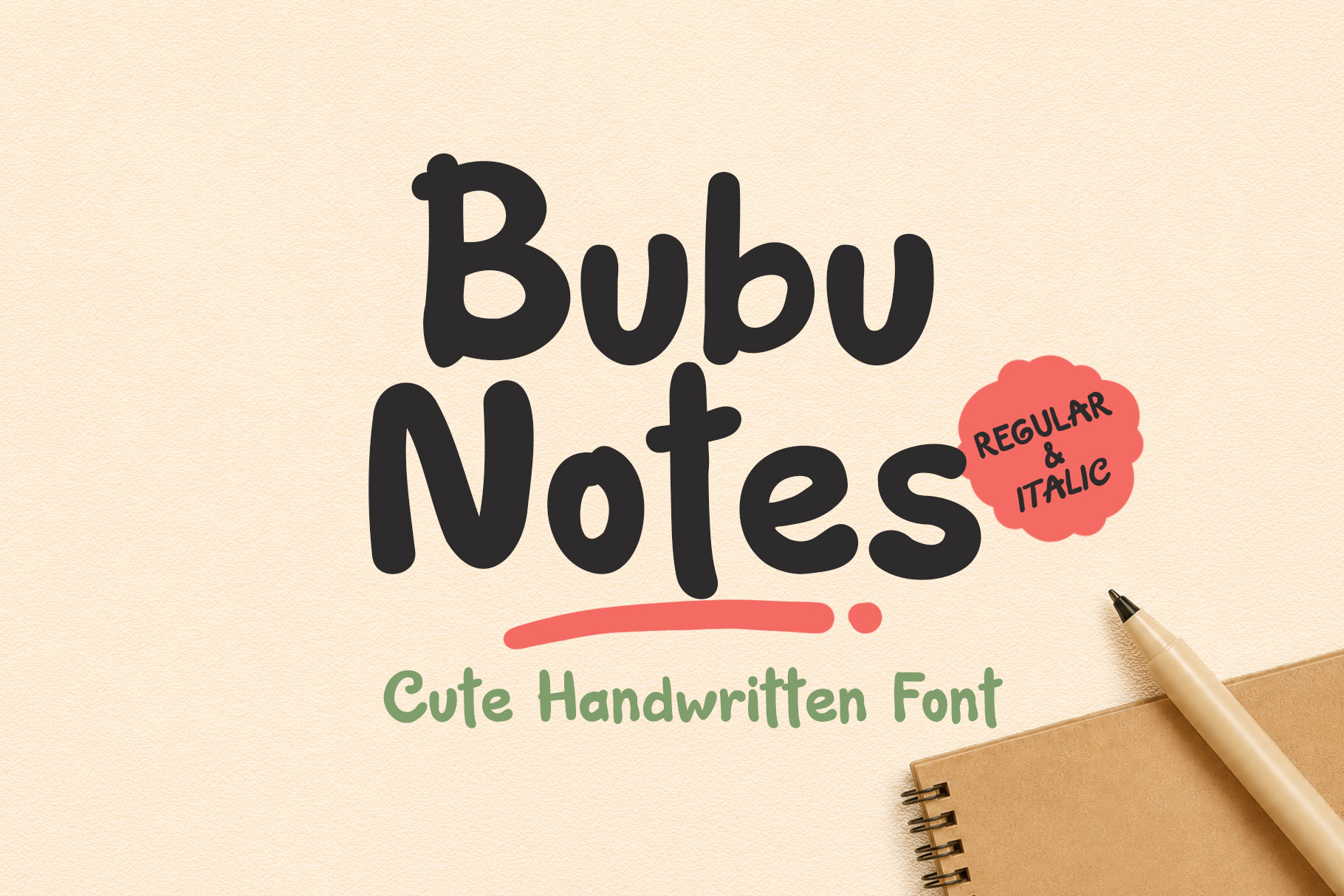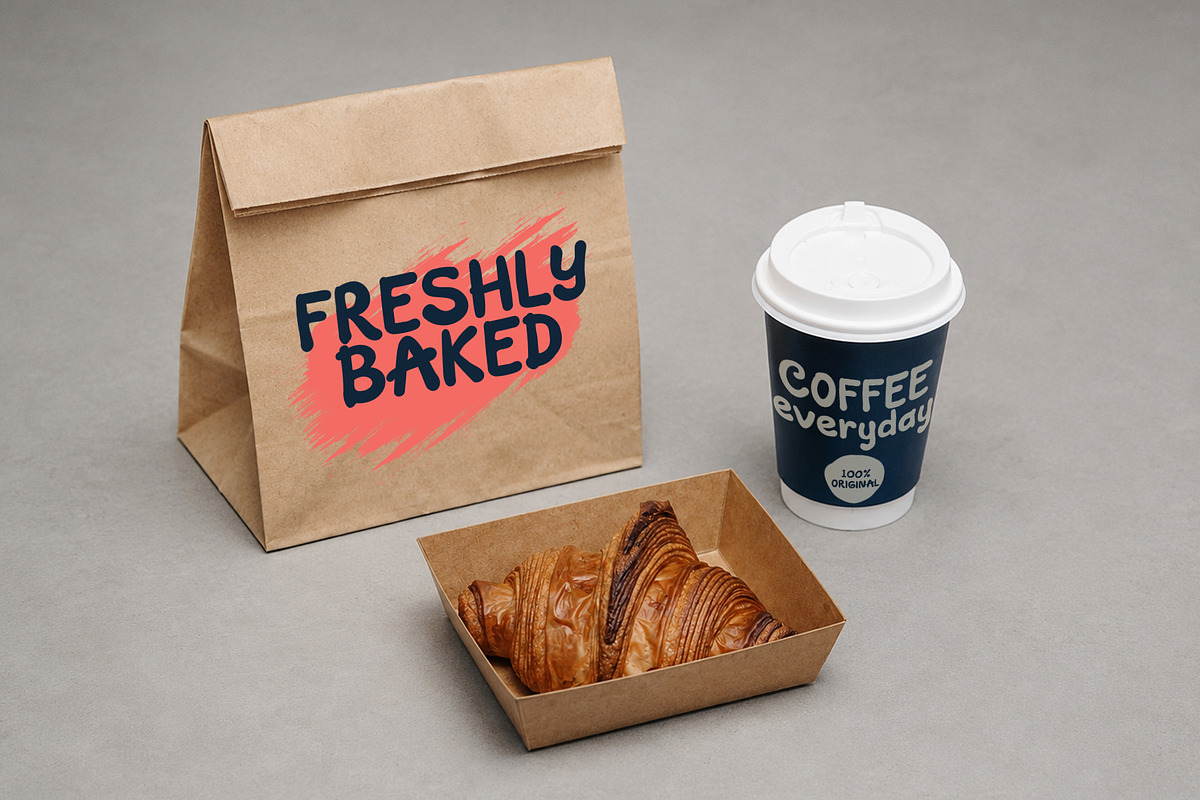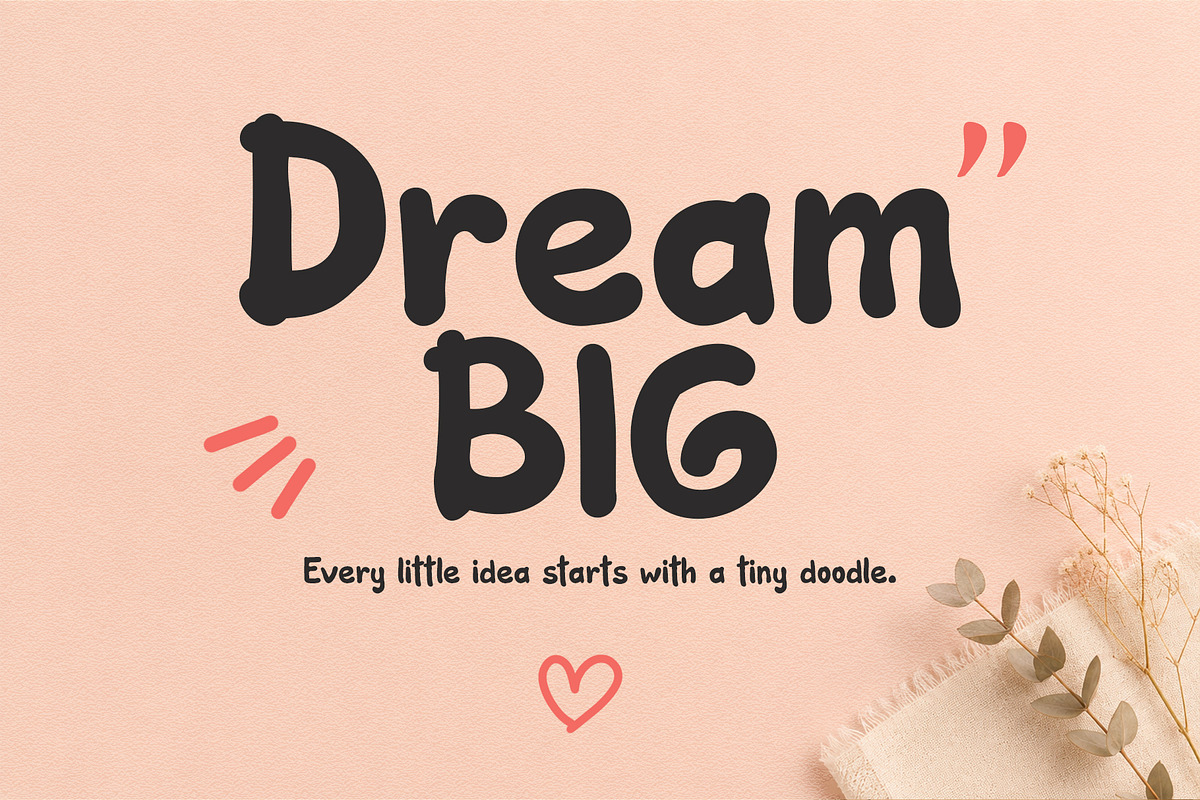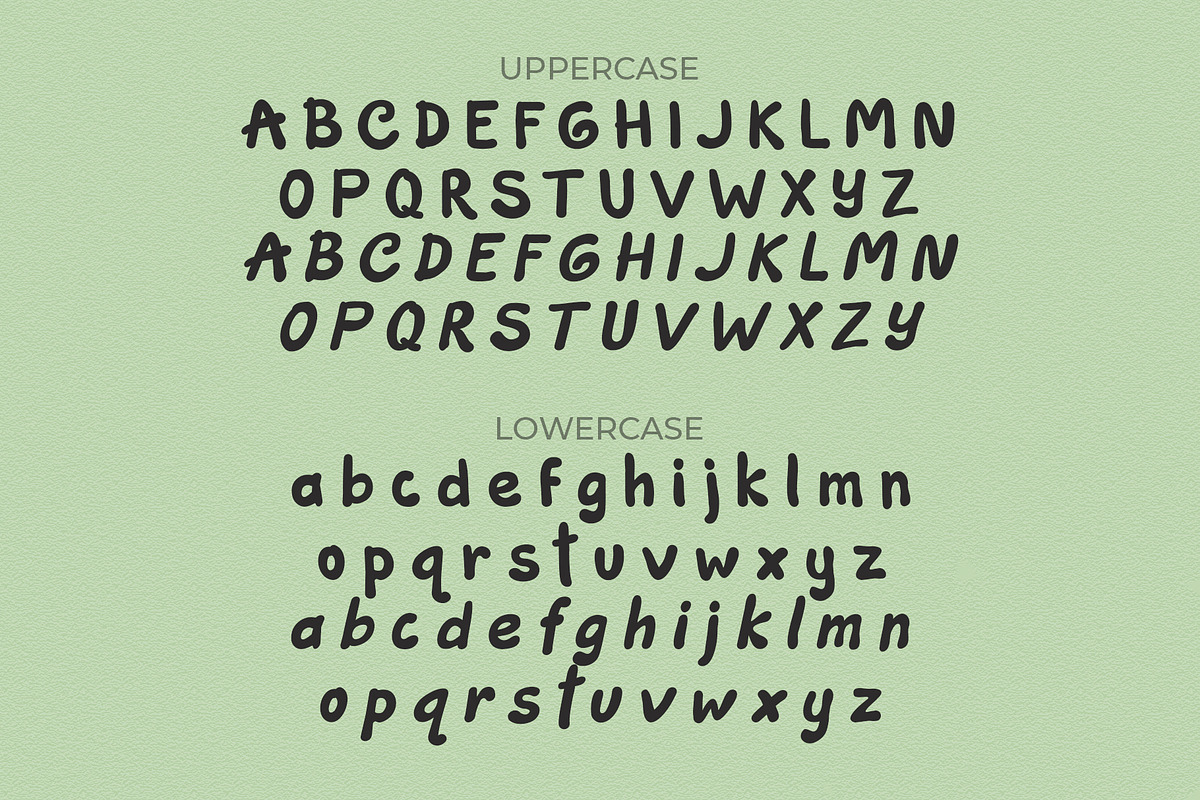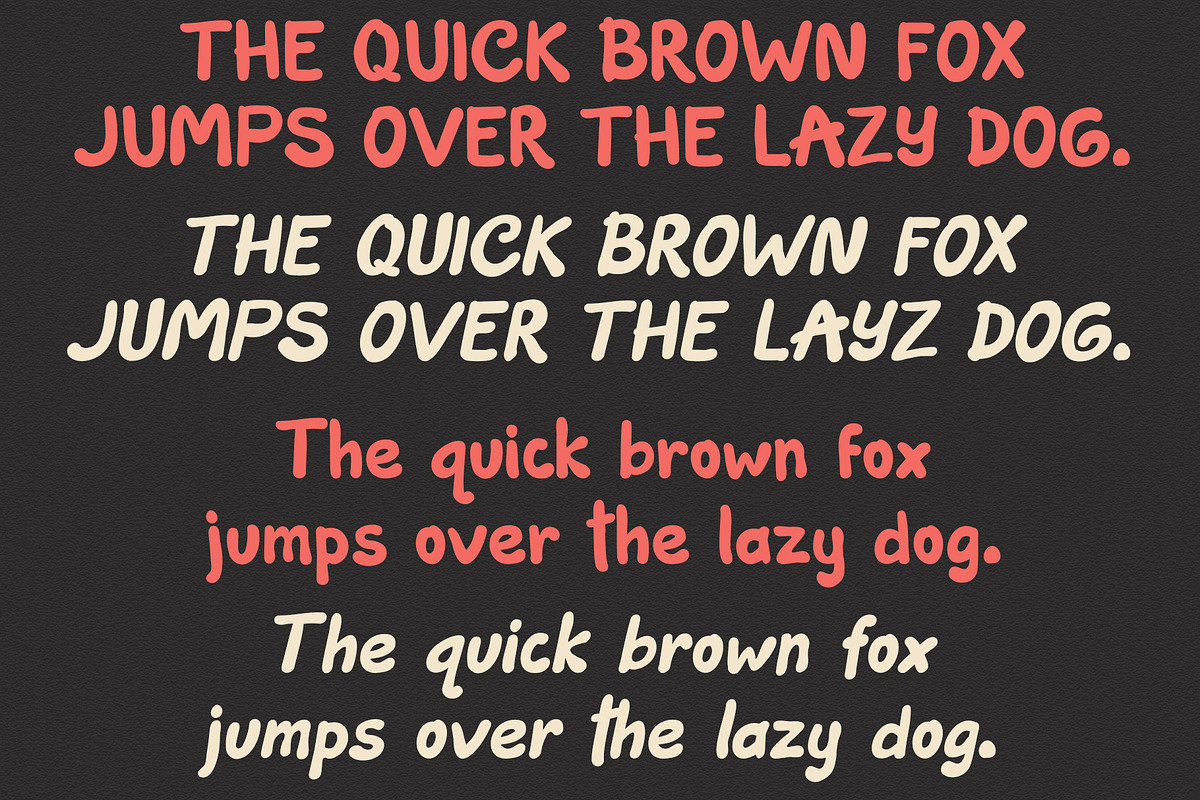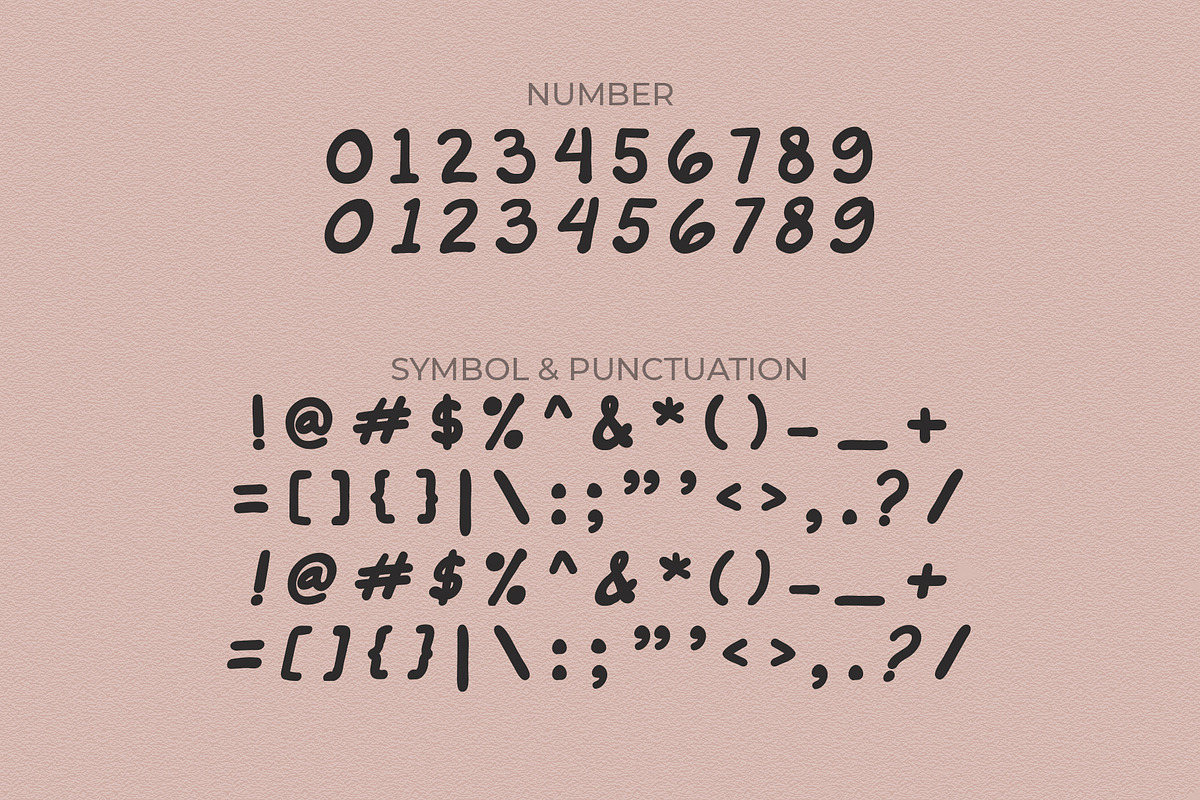
Bubu Notes - Cute Handwritten Font
Bubu Notes is a playful handwritten display font with soft rounded shapes and a natural handwritten character. Designed for creators who love warm, friendly typography, this font is perfect for logos, branding, packaging, café menus, bakery labels, greeting cards, children's products, social media posts, posters, planners, and Cricut projects.
Regular & Italic
Numbers & Symbols